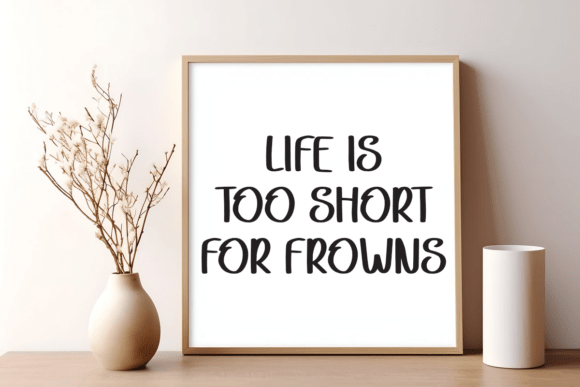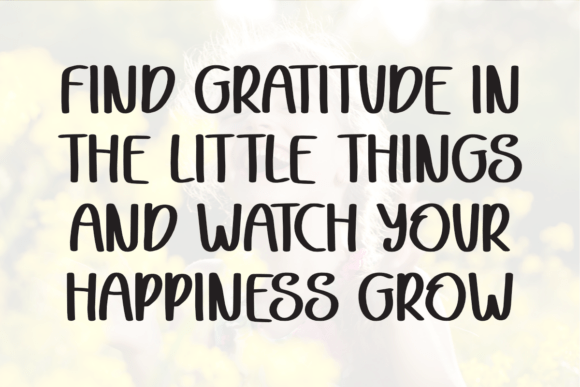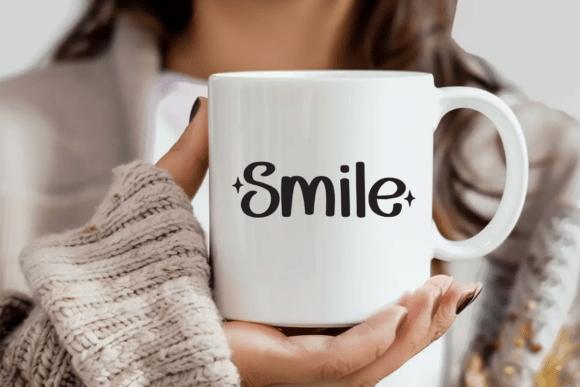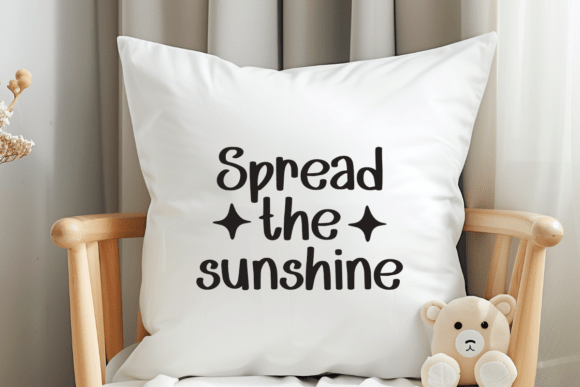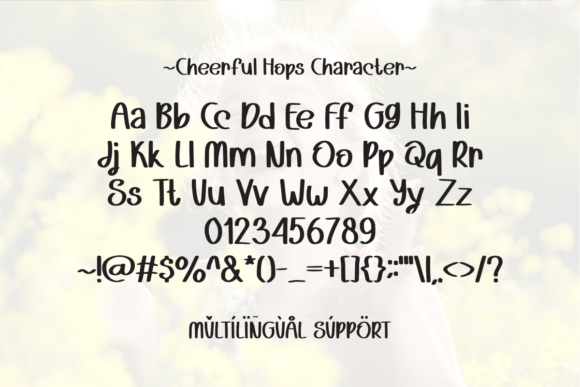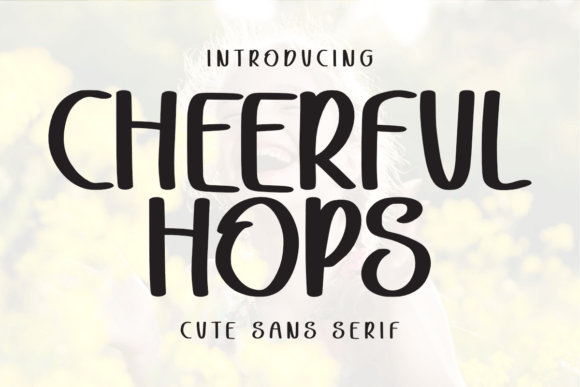
Introducing Cheerful Hops Font: The Perfect Addition to Your Playful Branding
Are you tired of using the same old fonts for your branding, social media posts, and children’s books? Look no further than Cheerful Hops Font, a cute and quirky sans serif font that’s sure to bring a smile to your audience’s faces. With its rounded curves and bouncy flow, Cheerful Hops is the perfect way to add a lighthearted, friendly touch to your designs.
The Characteristics of Cheerful Hops Font
Cheerful Hops Font is a sans serif font, which means it doesn’t have the small lines or flourishes that are commonly found at the ends of letters in serif fonts. This gives Cheerful Hops a clean and modern look that’s perfect for designs that need to feel fresh and youthful. The font’s rounded curves and bouncy flow add a playful touch that’s sure to capture your audience’s attention.
Perfect for Playful Branding
Cheerful Hops Font is ideal for brands that want to convey a sense of fun and playfulness. Whether you’re a children’s party planner, a toy manufacturer, or a kids’ clothing brand, Cheerful Hops is the perfect font to help you connect with your target audience. The font’s cheerful and upbeat vibe is sure to make your brand stand out and leave a lasting impression on your customers.
Great for Children’s Books
If you’re a children’s book author or illustrator, Cheerful Hops Font is a great choice for your next project. The font’s playful and whimsical feel is perfect for storybooks, picture books, and early readers. Cheerful Hops will help bring your characters to life and add a touch of magic to your storytelling.
Instagram-Worthy Posts
Want to add a pop of personality to your Instagram posts? Cheerful Hops Font is the perfect way to do just that. Use it to create eye-catching captions, quotes, or announcements that will make your followers smile. The font’s bold and playful style is sure to make your posts stand out in a crowded feed.
Key Features of Cheerful Hops Font
- Cute and quirky design: Cheerful Hops Font has a unique and playful design that’s sure to capture your audience’s attention.
- Rounded curves and bouncy flow: The font’s rounded curves and bouncy flow give it a lighthearted and friendly feel.
- Perfect for playful branding: Cheerful Hops Font is ideal for brands that want to convey a sense of fun and playfulness.
- Great for children’s books: The font’s playful and whimsical feel makes it perfect for storybooks, picture books, and early readers.
- Instagram-worthy posts: Use Cheerful Hops Font to create eye-catching captions, quotes, or announcements that will make your followers smile.
Tips for Using Cheerful Hops Font
Here are a few tips for getting the most out of Cheerful Hops Font:
- Use it in large sizes: Cheerful Hops Font looks best in large sizes, so use it for headings, titles, and captions.
- Pair it with a simple font: Pair Cheerful Hops Font with a simple font, like a serif font, to create a nice contrast.
- Experiment with colors: Cheerful Hops Font looks great in bright, bold colors, so don’t be afraid to experiment.
Cheerful Hops Font is a unique and playful font that’s perfect for designers and crafters who want to add a lighthearted, friendly touch to their designs. With its rounded curves and bouncy flow, Cheerful Hops is ideal for playful branding, children’s books, Instagram posts, and anything that needs a cheerful vibe. So why not give Cheerful Hops Font a try and see how it can bring a smile to your audience’s faces?